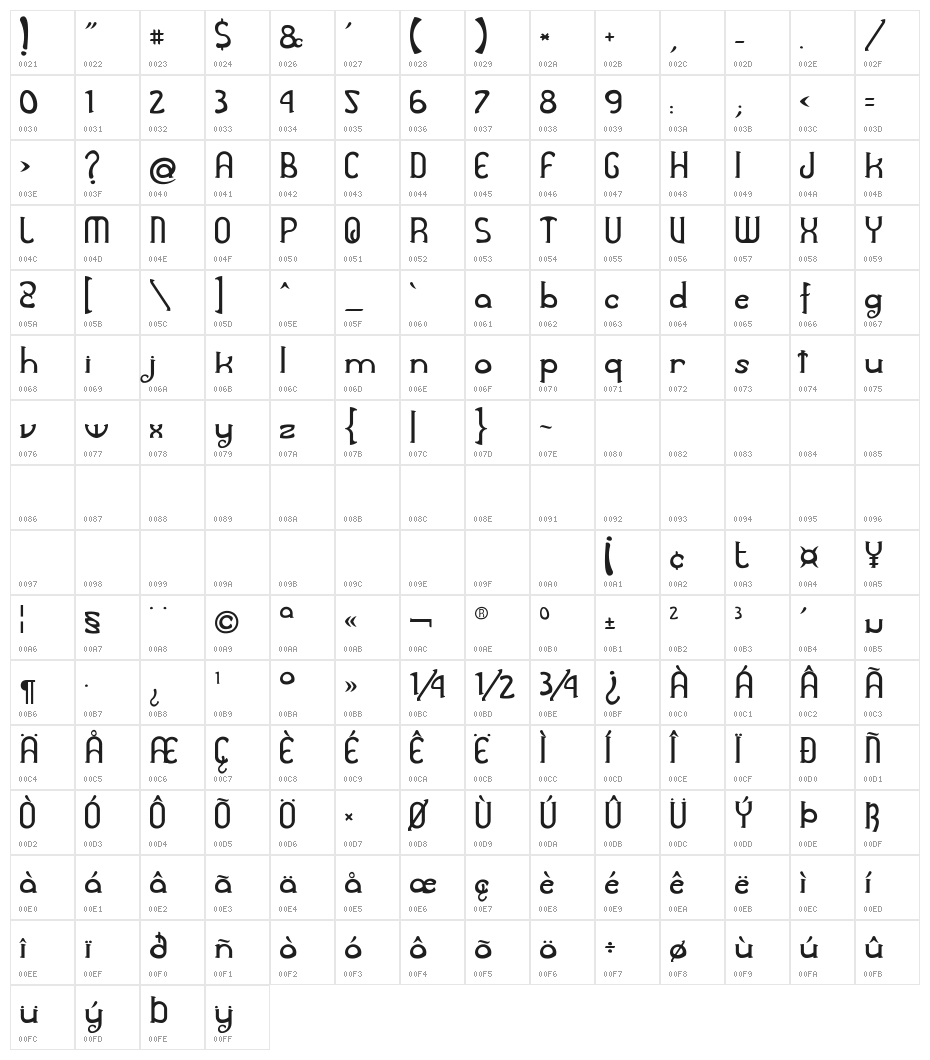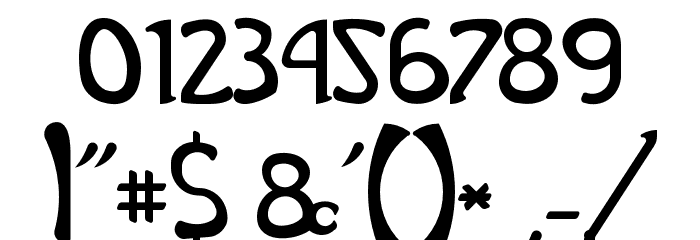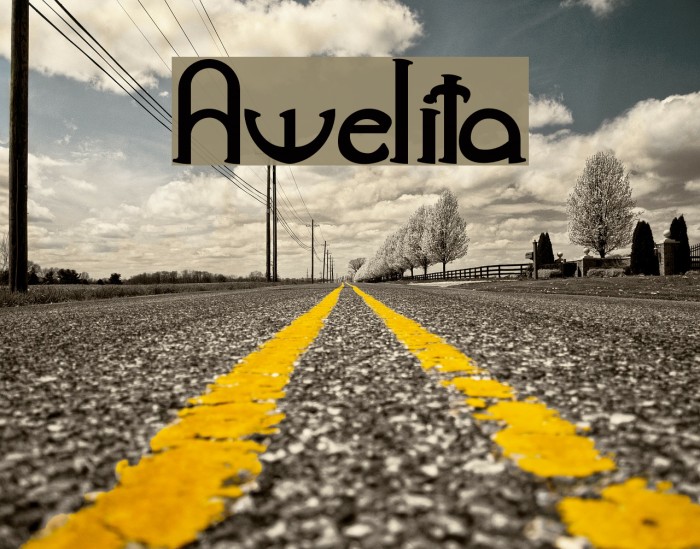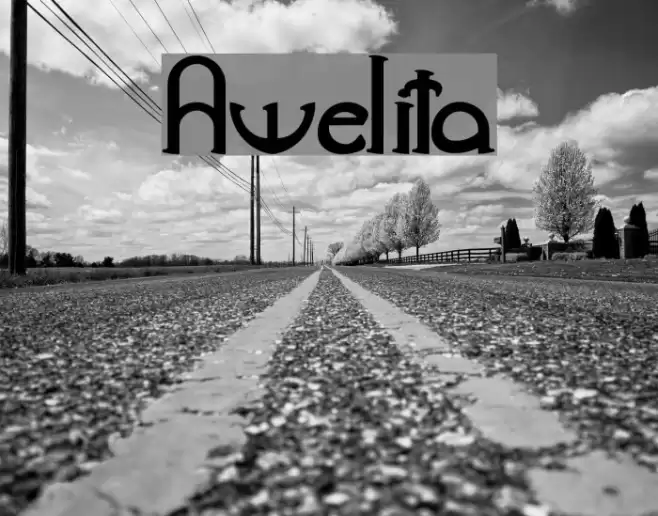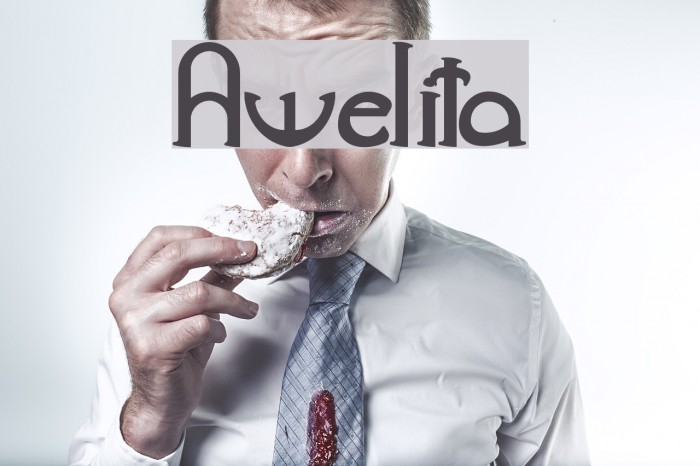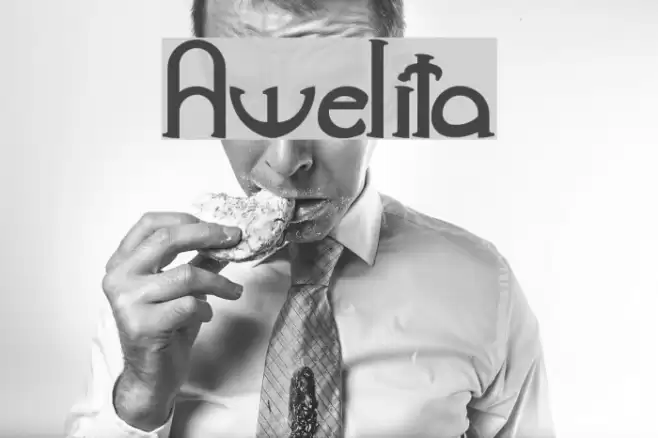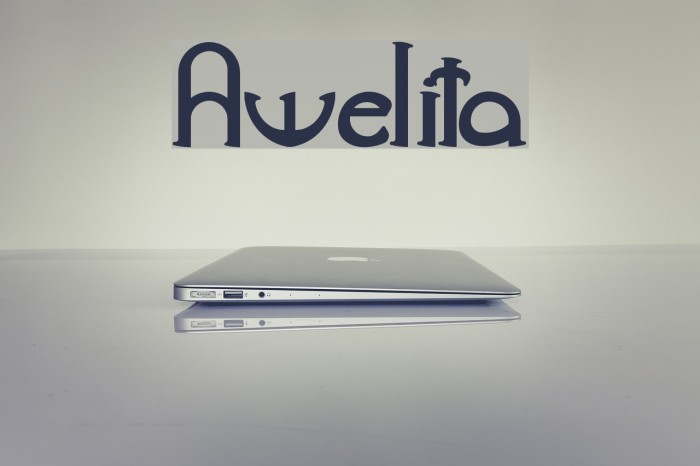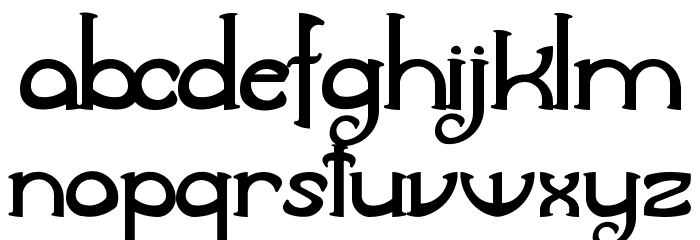
Awelita Font
Awelita Description
This font exhibits a unique blend of modern and vintage styles, characterized by its distinctively curved and elongated letterforms. The uppercase letters feature a playful yet sophisticated design with rounded edges and a slight art deco influence, while the lowercase letters maintain a consistent flow with subtle variations in stroke width. The numerals are bold and easily readable, complementing the overall aesthetic. Special characters are thoughtfully designed to match the font's whimsical yet elegant style, making it versatile for various applications.
| Overall Style | Modern, Vintage |
| Proposed Projects | Ideal for branding, packaging, posters, and invitations where a touch of elegance and playfulness is desired. |